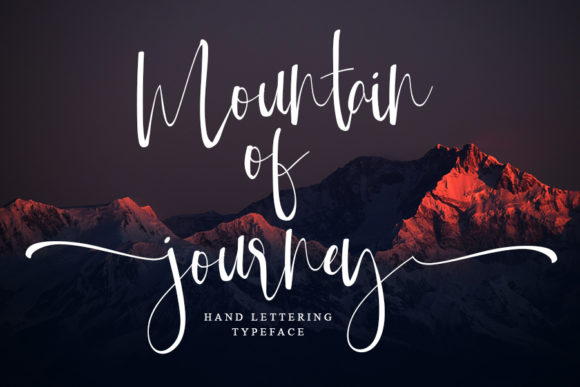
Prepare to be swept away by the enchanting allure of Mountain of Journey, a breathtaking script font that will captivate your heart and ignite your creativity. Its delicate strokes, flowing curves, and graceful swashes dance across the page like a gentle breeze, evoking a sense of timeless elegance and romance.
Indulge in the beauty of handwritten calligraphy with this exquisite font, perfect for expressing your heartfelt emotions in love letters, wedding invitations, heartfelt notes, and more. Its versatility knows no bounds, as it effortlessly enhances any design with a touch of sophistication and charm.
Mountain of Journey is crafted with meticulous attention to detail, ensuring that every letter, glyph, and swash flows seamlessly, creating a harmonious and visually captivating experience. With its PUA encoding, you'll have effortless access to a world of creative possibilities, empowering you to express your individuality and make a lasting impression.
Whether you're a seasoned designer or simply seeking a touch of elegance in your personal creations, Mountain of Journey is the perfect font to elevate your work. Its timeless aesthetic and boundless versatility make it a must-have for any font enthusiast.
Immerse yourself in the world of Mountain of Journey and let your imagination soar. Its enchanting strokes will weave a tapestry of emotions, captivating your audience and leaving an unforgettable mark. Embrace the power of written words, infused with the allure of Mountain of Journey, and let your creativity blossom.